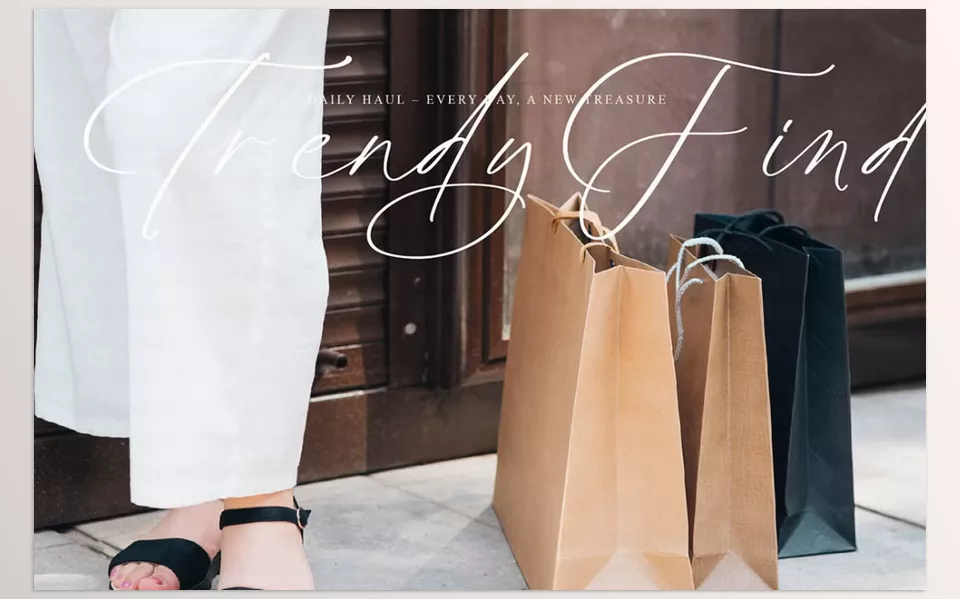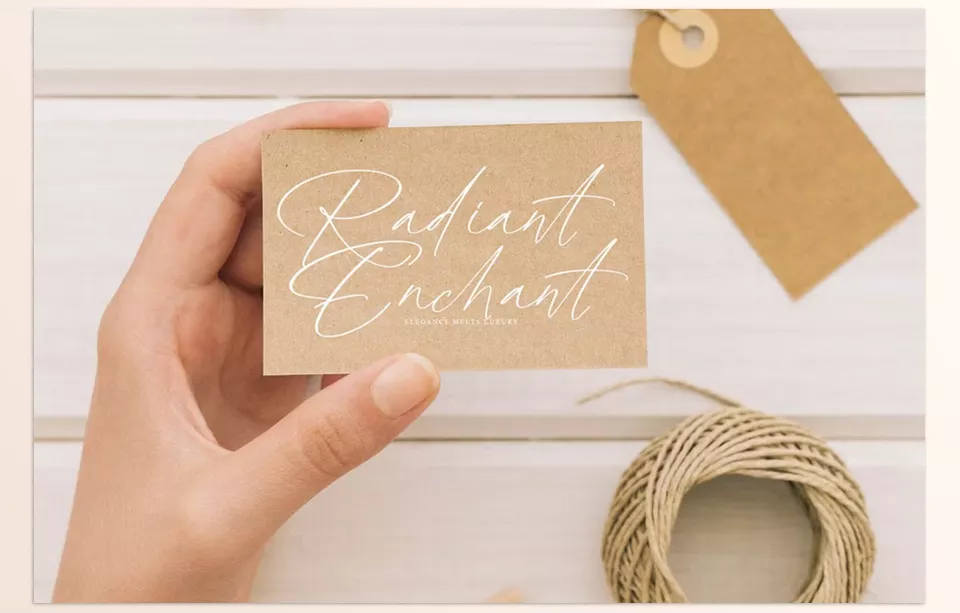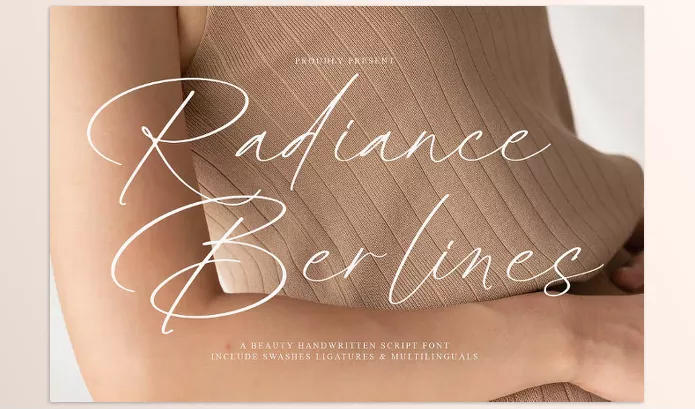
Radiance Berlines Script Font is a beautifully crafted script font that best suits luxury and elegant designs. The premium fluid style enhances the logos of sophisticated brands and also greeting cards. For high-end brands or even a personal invitation, make your text stand out with Radiance Berlines.
• Multiple styles: Features alternate characters, ligatures, and swashes for flexible stylistic choices.
• Language support: Provides support for 65 languages, making it suitable for global initiatives.
• Premium feel: Suitable for upscale branding, luxurious invitations, and other high-end design projects.
Image 1: Add elegance to your designs with smooth, flowing lettering.
Radiance Berlines Script Font - Add elegance to your designs with smooth, flowing lettering.
Image 2: Perfect for fiberglass branding and stylish product packaging.
Radiance Berlines Script Font  - Perfect for fiberglass branding and stylish product packaging.